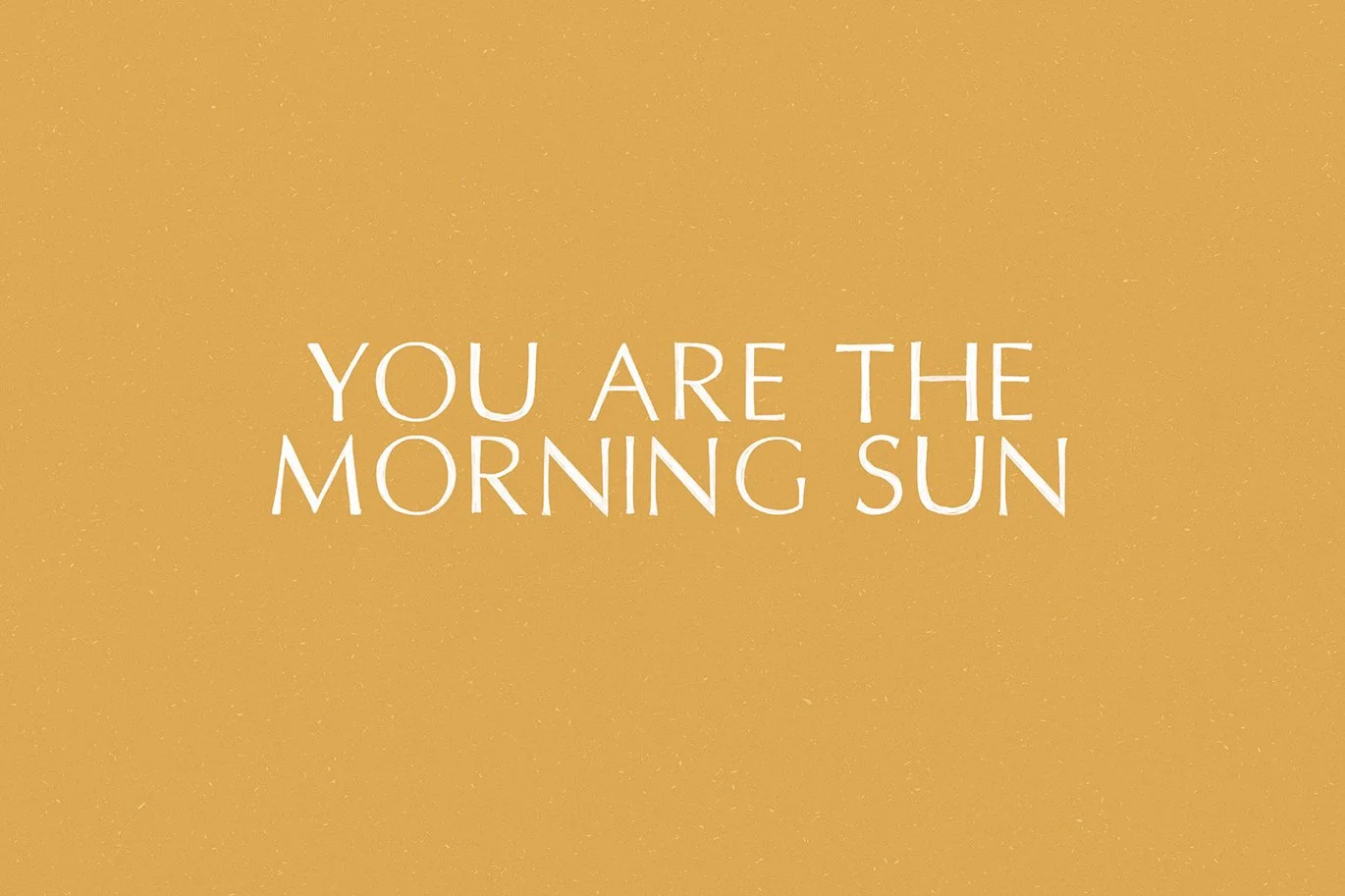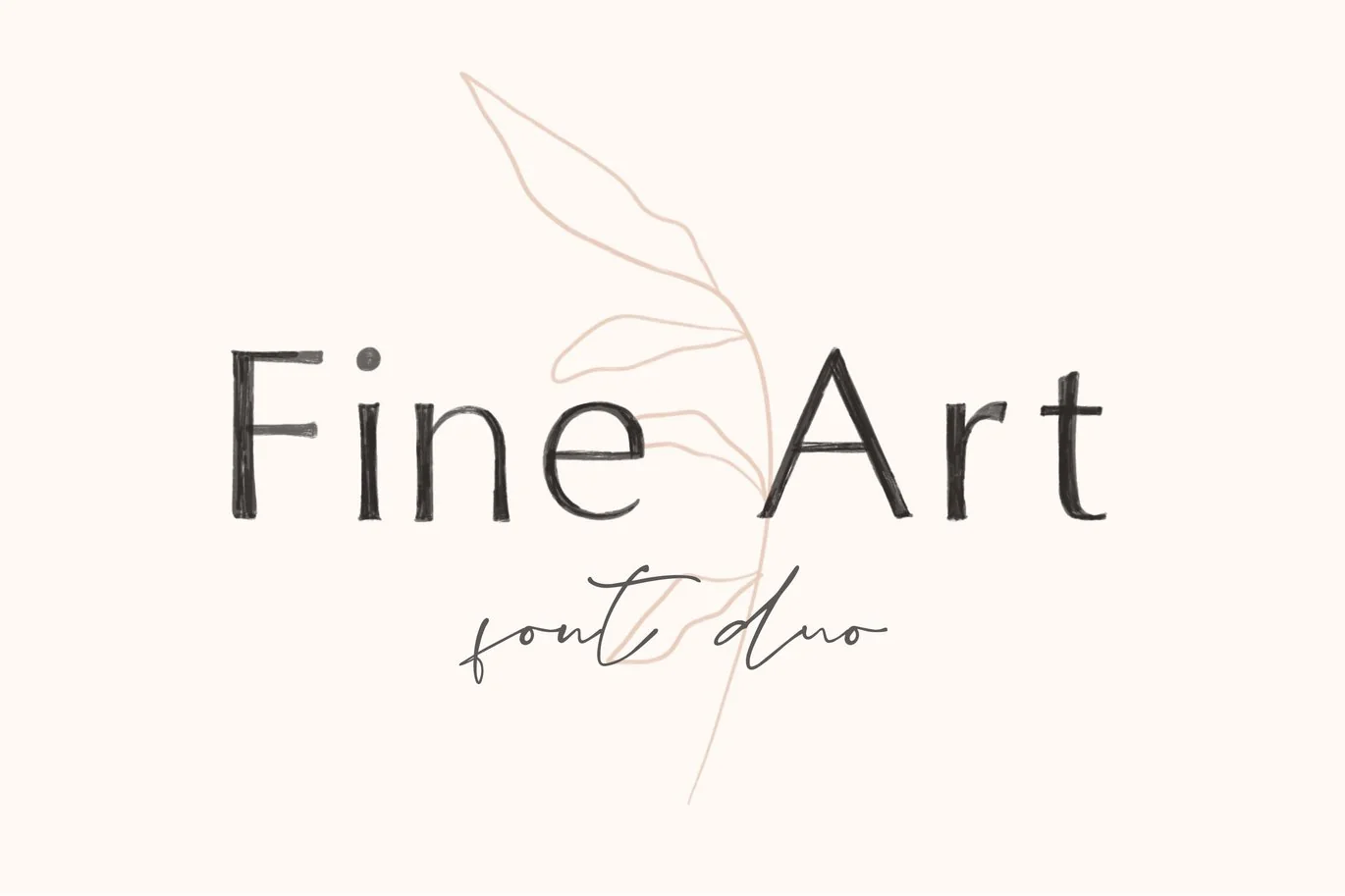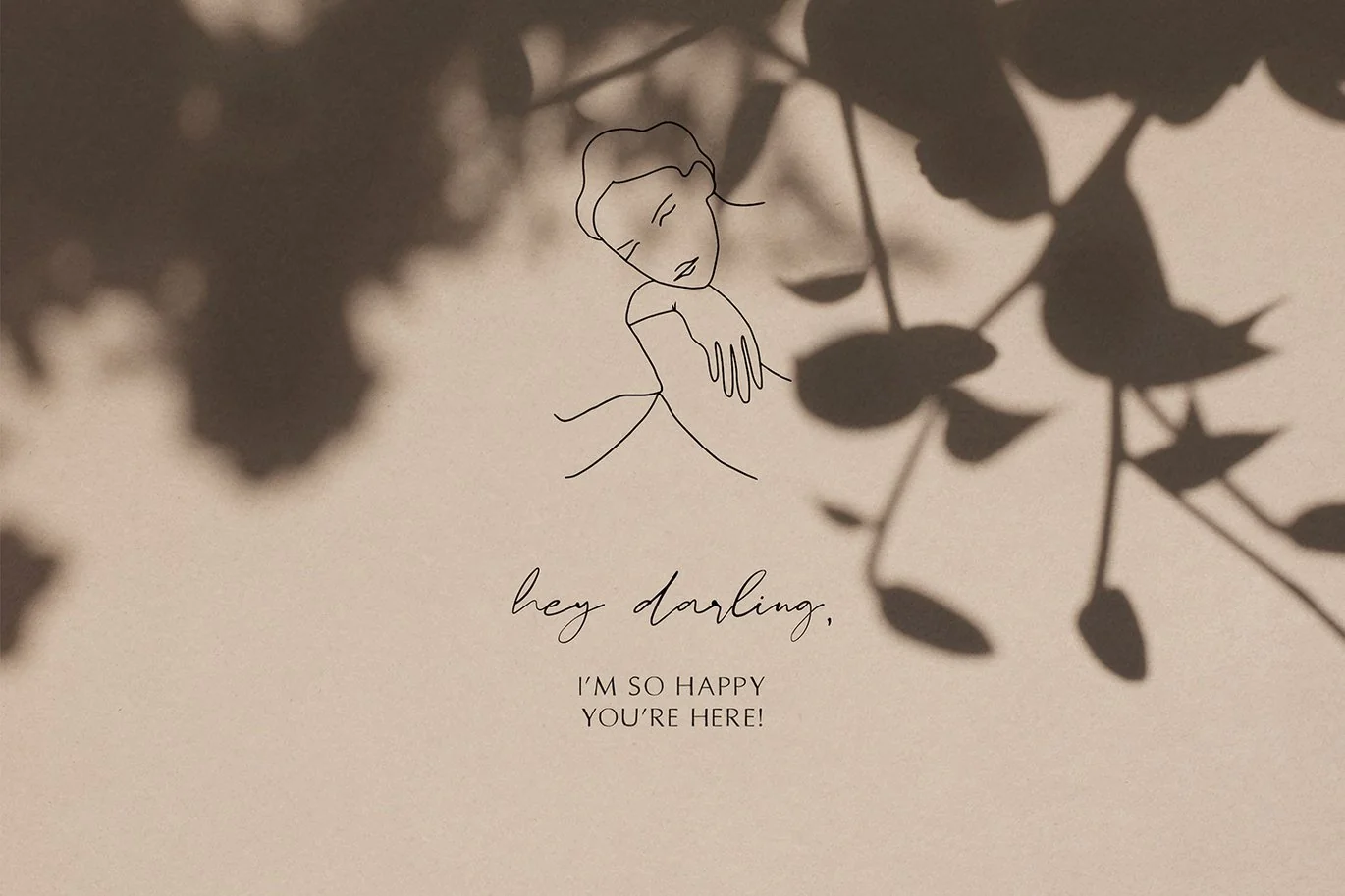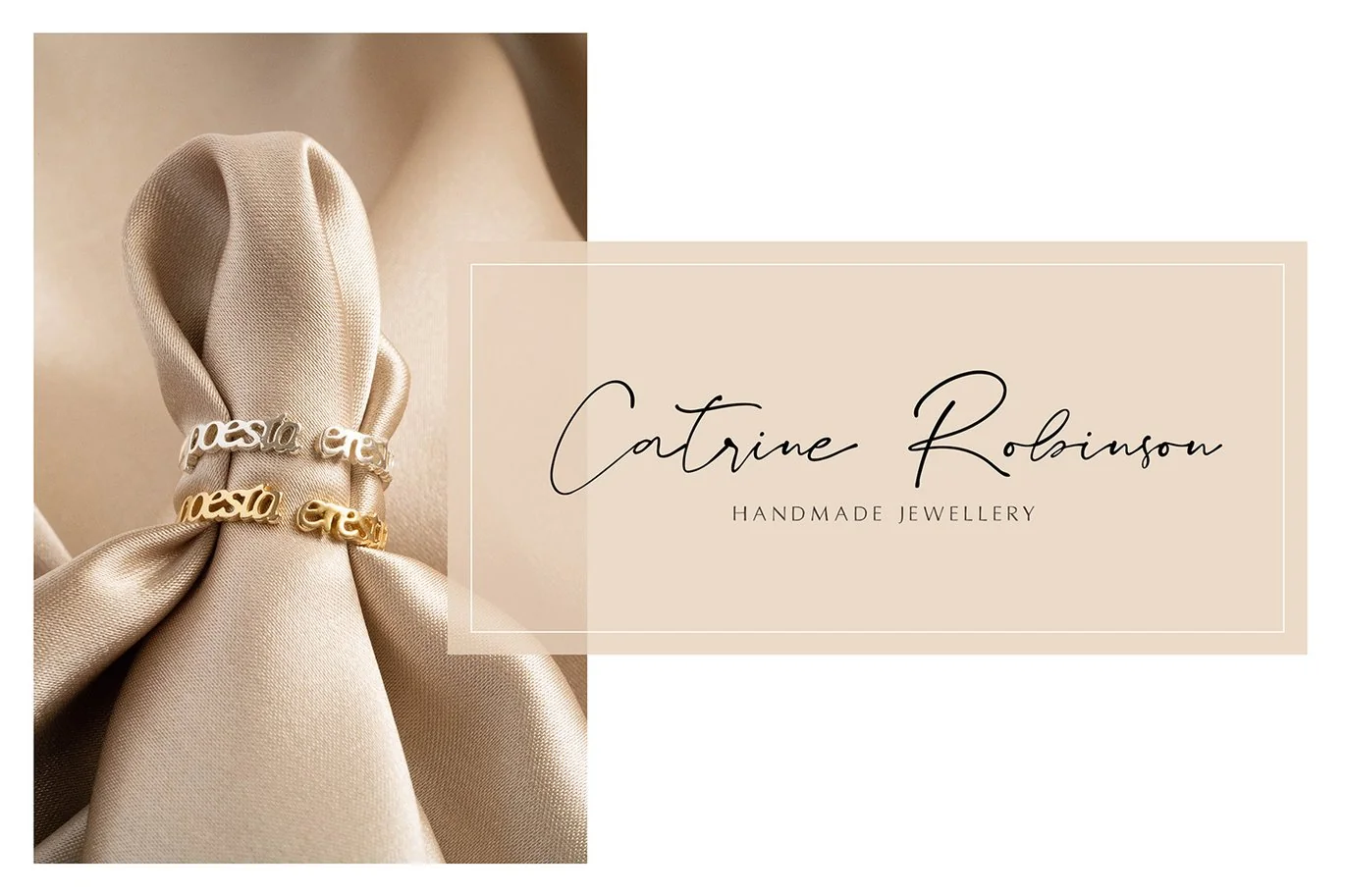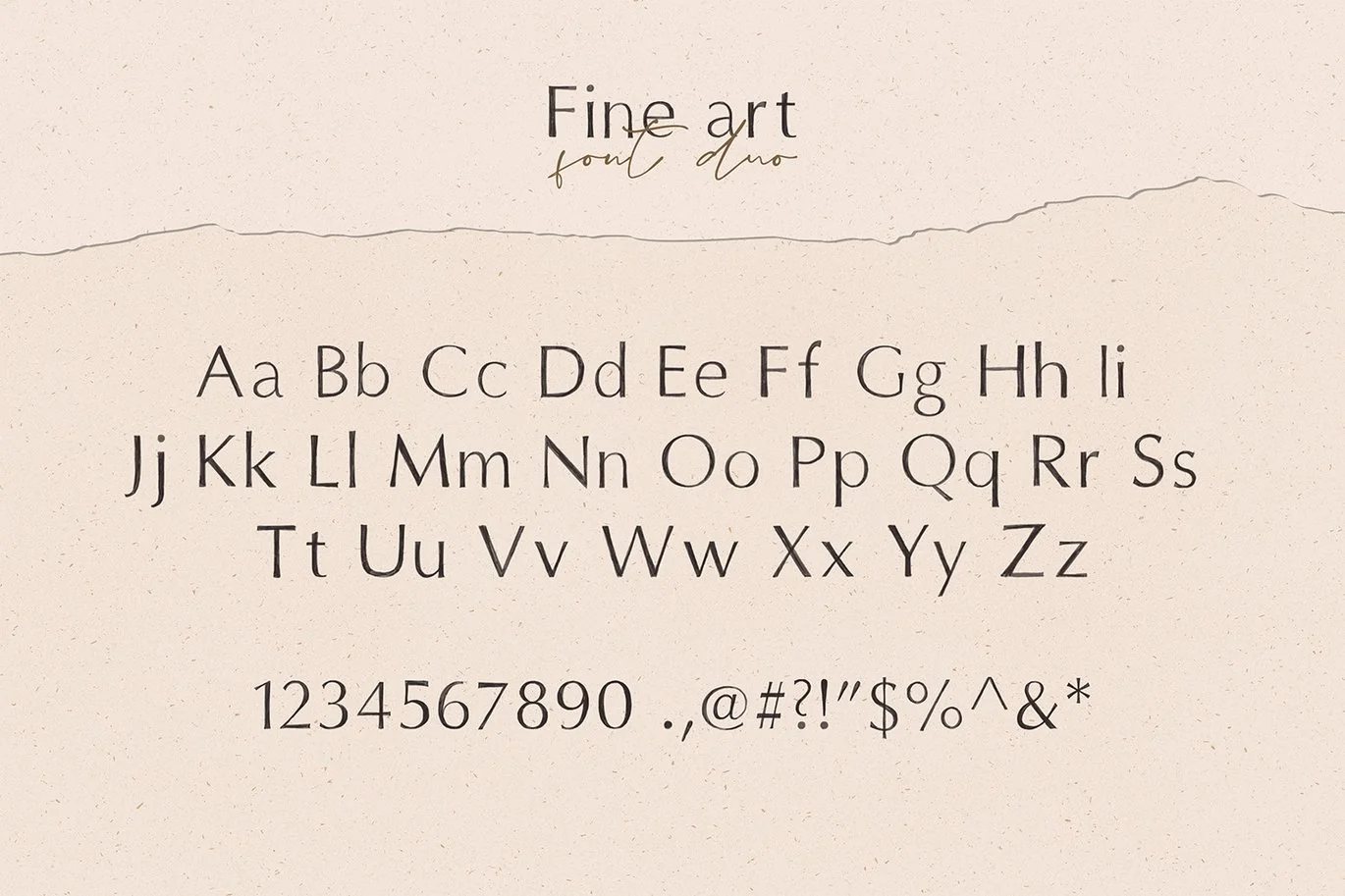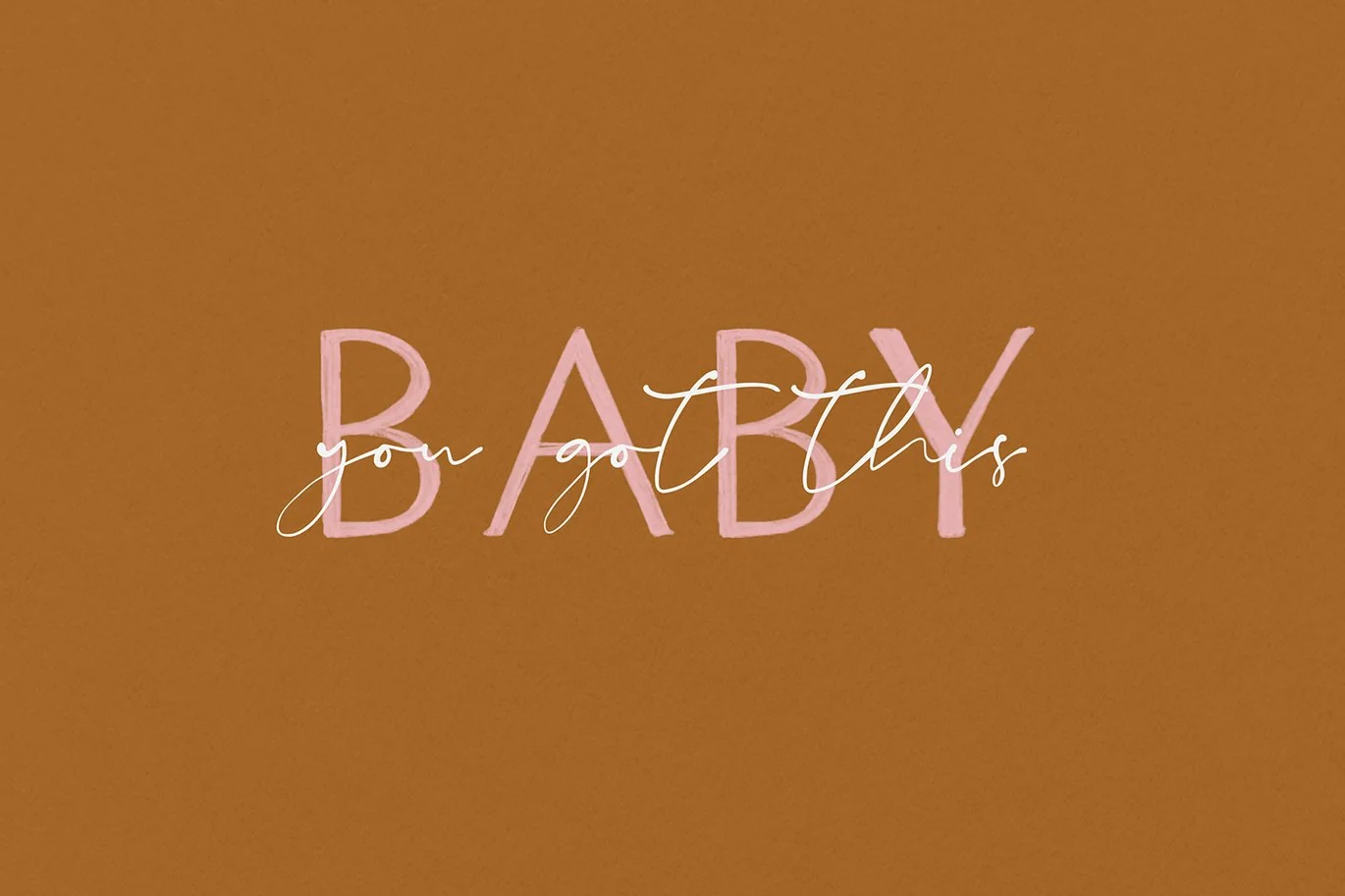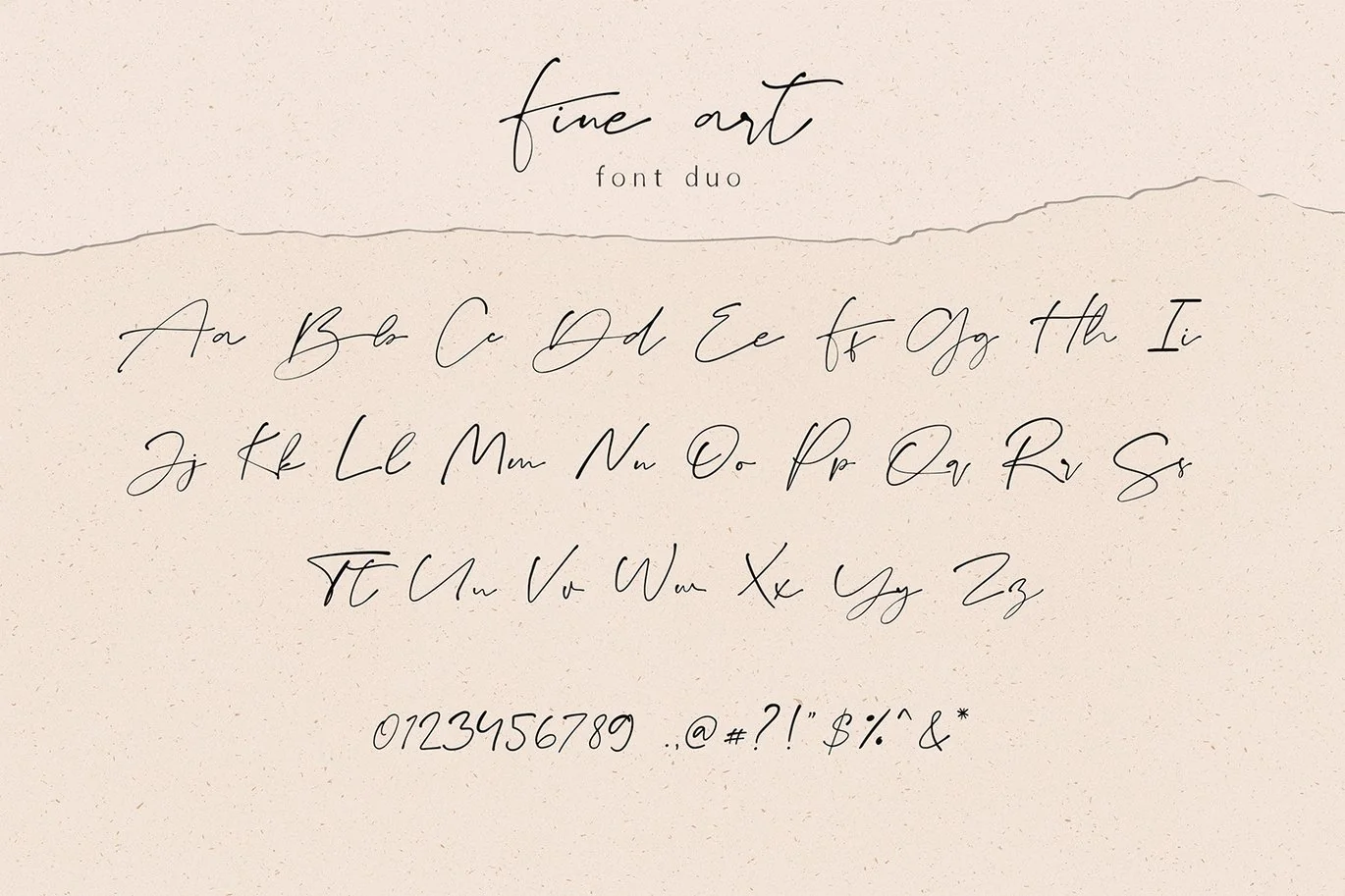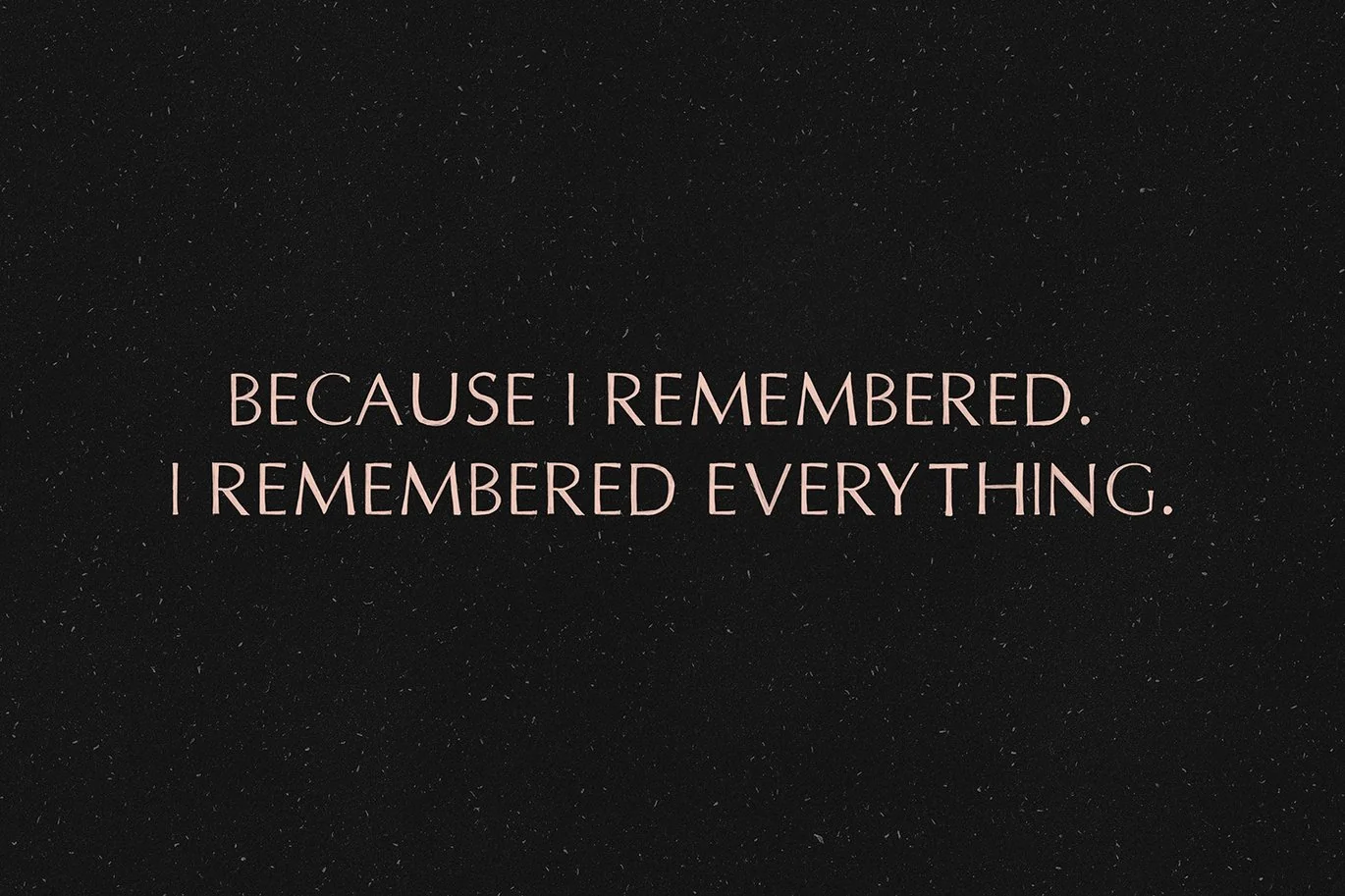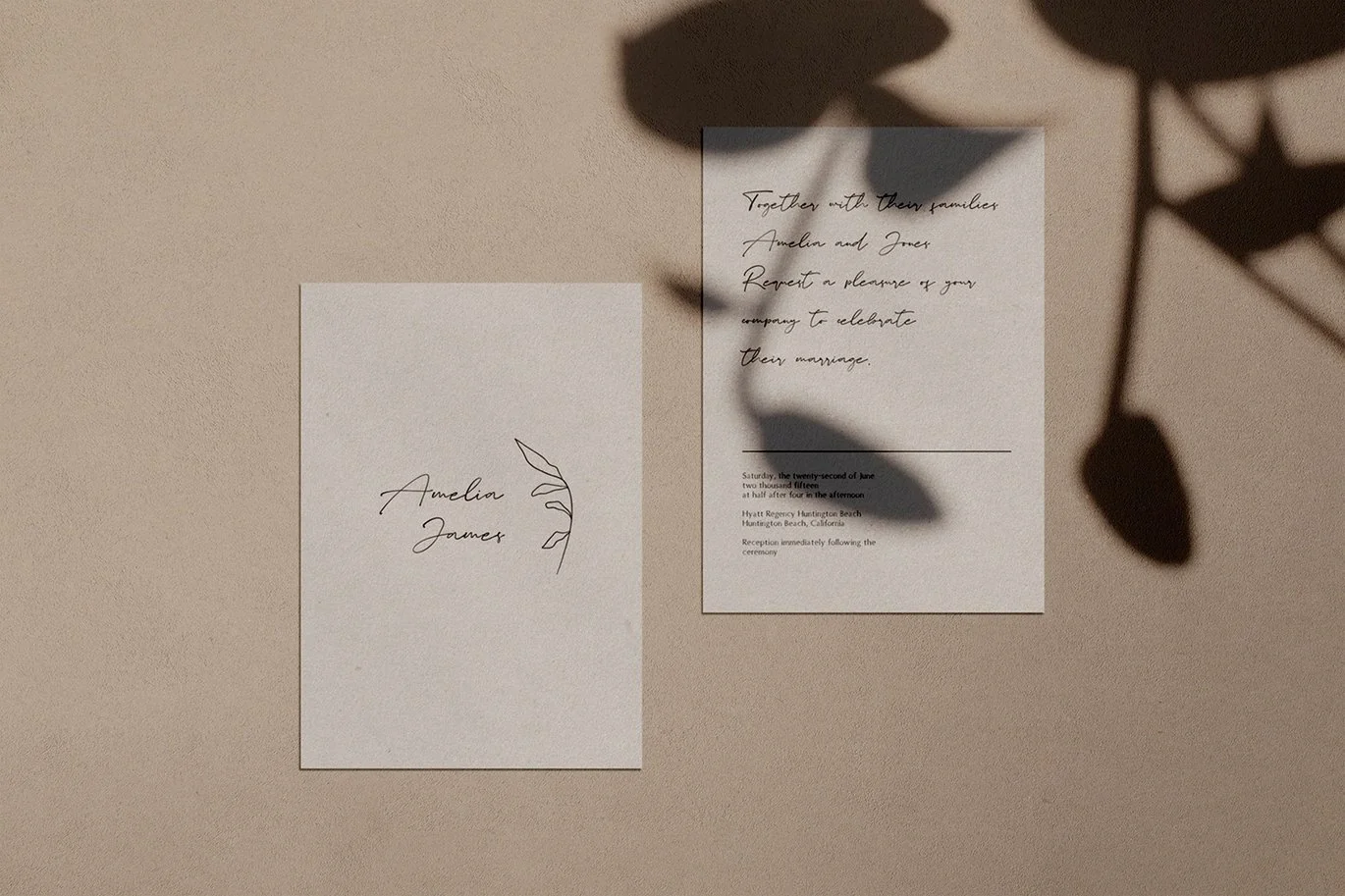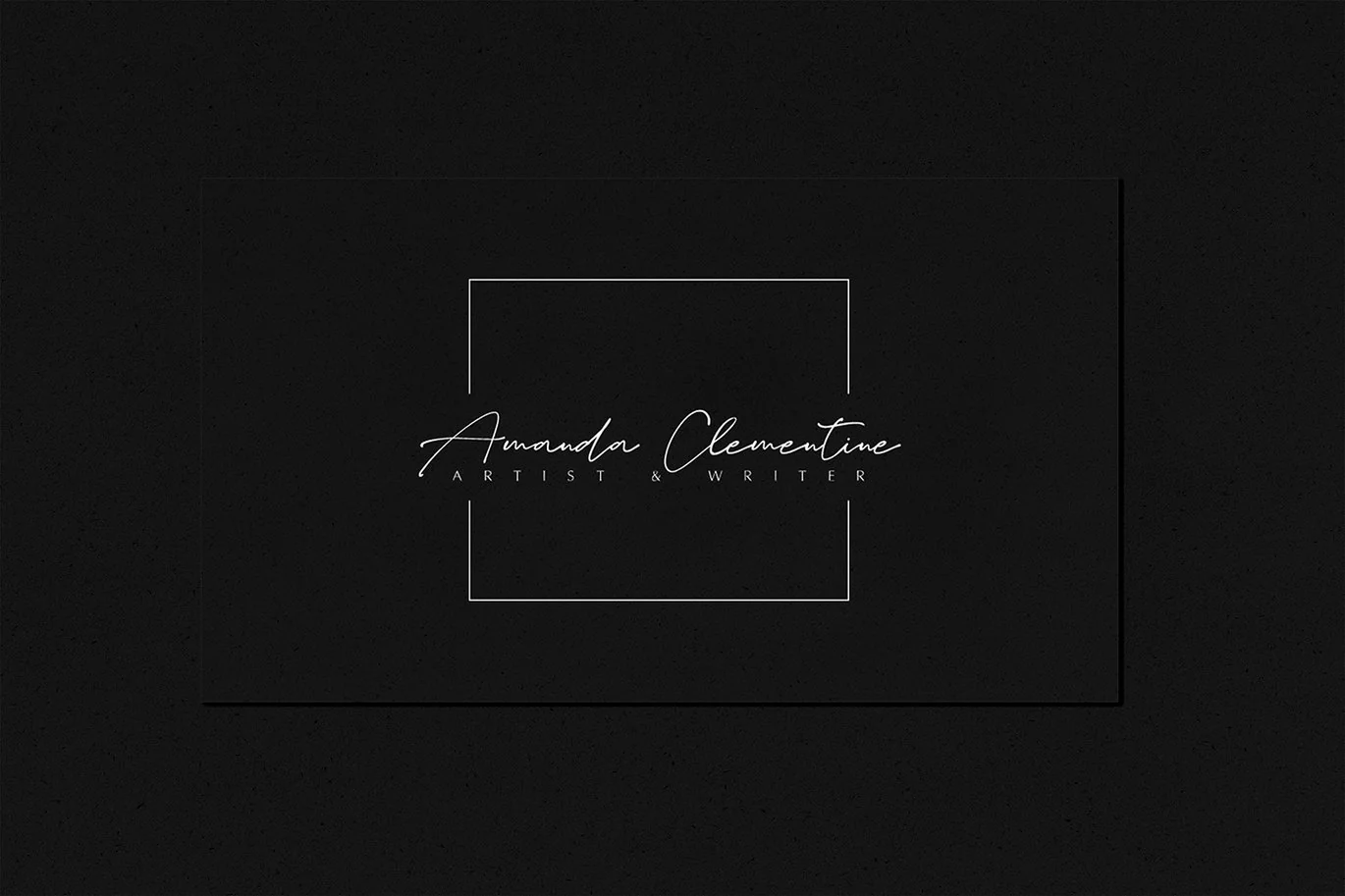
Fine Art Font duo
Fine Art is an aesthetic font duo. Hand-painted & elegant design. Perfectly suited to logo, branding, signature, wedding cards, packaging design, stationery, website design and more.
Fine Art Sans Serif bitmap font that contains upper and lowercase characters, number 0-9 and a range of punctuation and symbols (OTF) + solid vector version (OTF).
Fine Art Script font that contains upper and lowercase characters, number 0-9 and a range of punctuation and symbols (OTF).